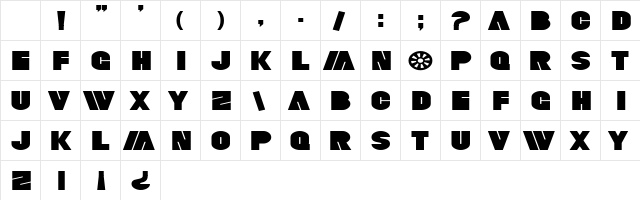
Complete SF Fortune Wheel Exp Bold glyph index. Displaying only characters natively supported by SF Fortune Wheel Exp Bold font.
SF Fortune Wheel Exp is a composed and adaptable typeface that performs quietly and consistently across a wide range of design contexts. Its bold stroke weight gives it real presence on the page.